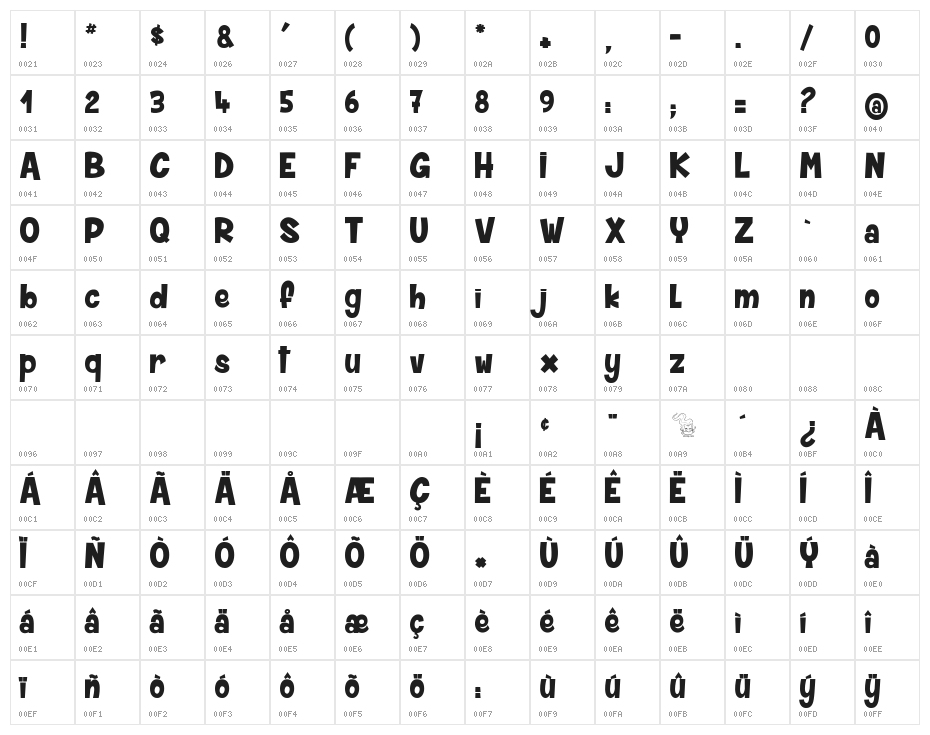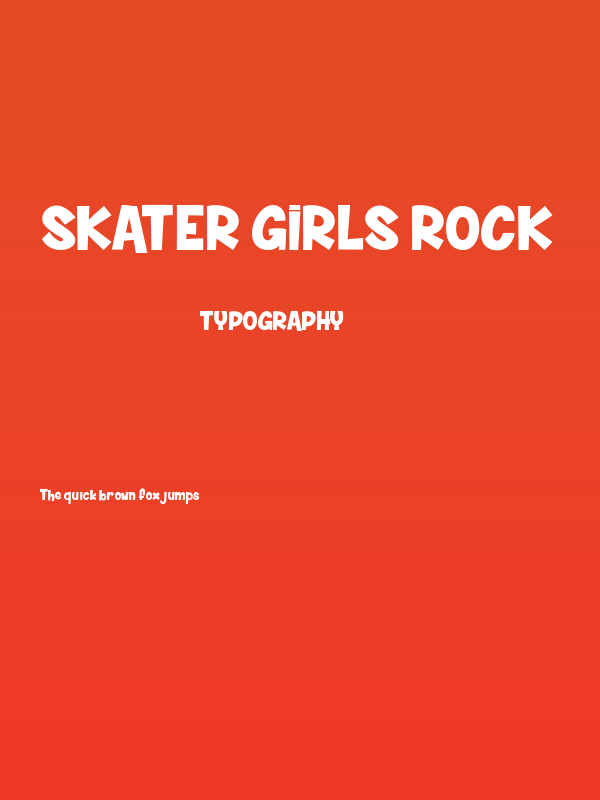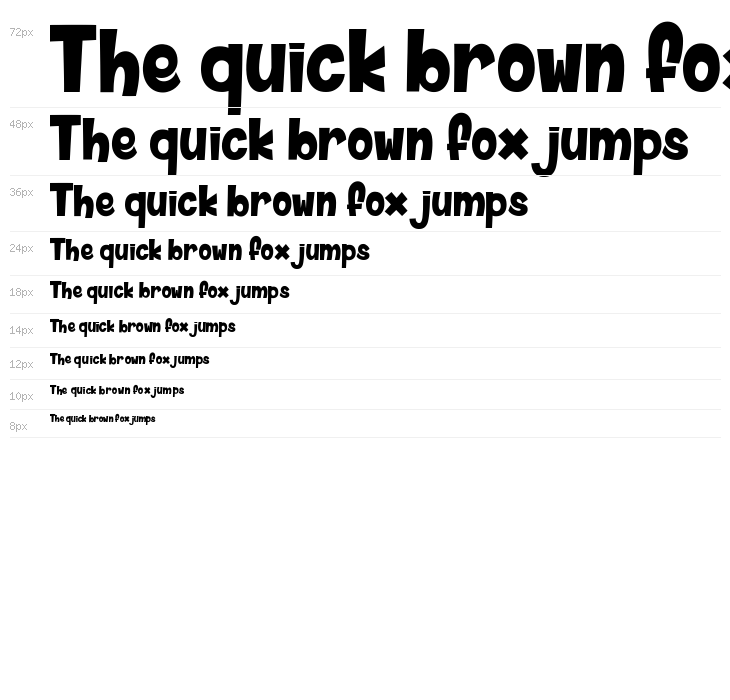
Skater Girls Rock Font
Skater Girls Rock Description
This font features bold, playful characters with a distinct, youthful vibe. The letters are thick and rounded, giving them a friendly and approachable appearance. The uppercase and lowercase letters maintain a consistent style, with some unique touches such as the quirky 'Q' and 'R'. The numbers are equally bold, ensuring readability. Special characters are included, matching the overall playful aesthetic. This font is ideal for projects that require a fun and energetic feel, such as children's books, posters, or branding for youth-oriented products.
| Overall Style | Playful, Youthful, Energetic |
| Proposed Projects | Children's books, playful posters, youth branding, event flyers. |